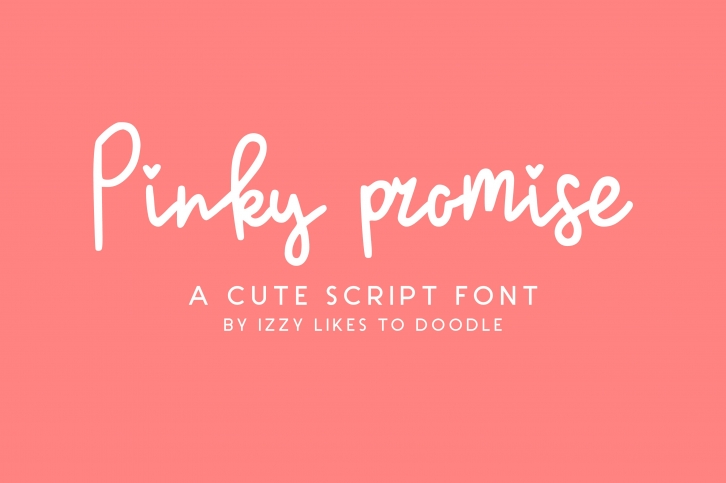
Pinky Promise is cute girly script typeface perfect for any fun quirky design work! This font can be used for anything such as T-Shirt designs, phone cases, greeting cards, invitations, mugs and so much more! Get creative!